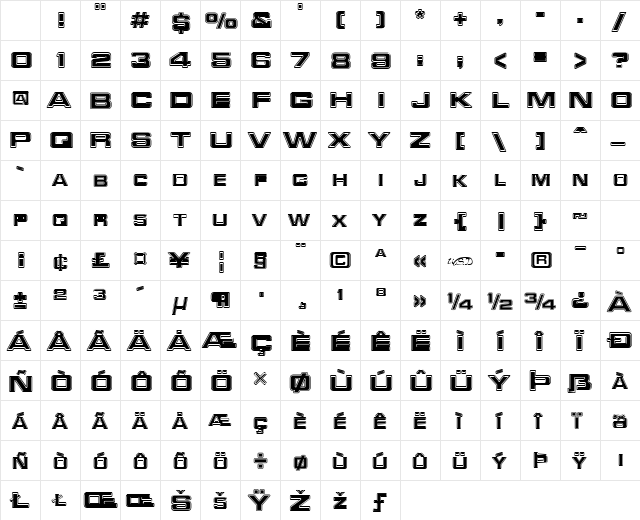
Trekker-3 normal
Design Context for Trekker-3
Trekker-3 is a composed and adaptable typeface that performs quietly and consistently across a wide range of design contexts.